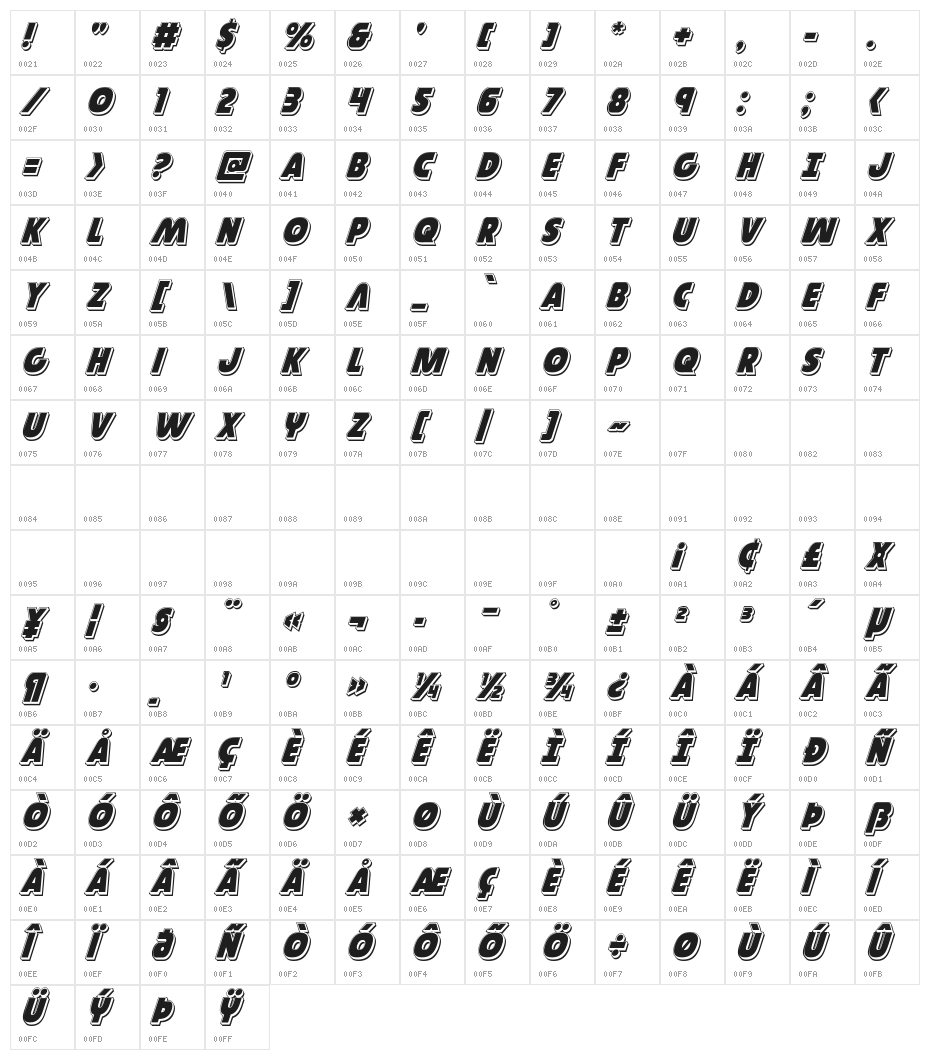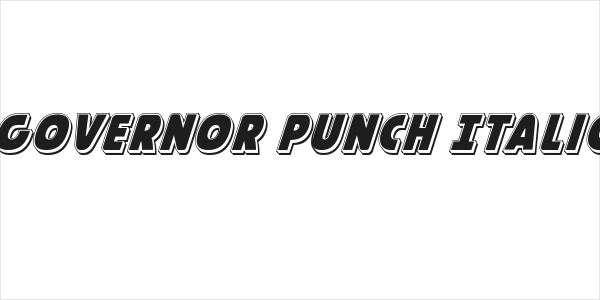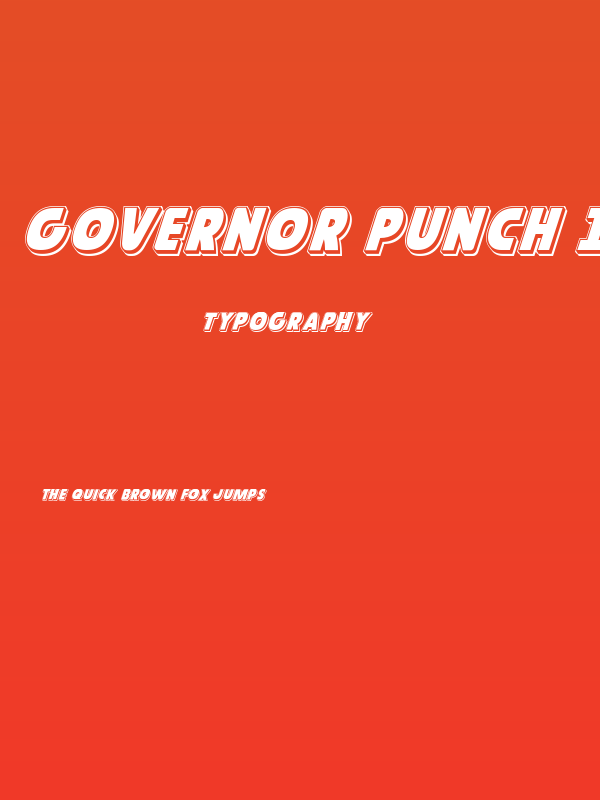
Governor Punch Italic Font
Governor Punch Italic Description
This font features a bold, dynamic style with a strong presence, characterized by thick, blocky letters that are slightly italicized. The letters have a three-dimensional effect with a shadow or outline that gives them depth and a sense of movement. The uppercase and lowercase letters maintain a consistent weight, contributing to a cohesive and impactful appearance. The numbers and special characters follow the same bold and italicized style, ensuring uniformity across all glyphs. This font is designed to grab attention and convey a sense of strength and modernity.
| Proposed Projects | Ideal for headlines, posters, logos, and branding materials that require a bold and modern look. |